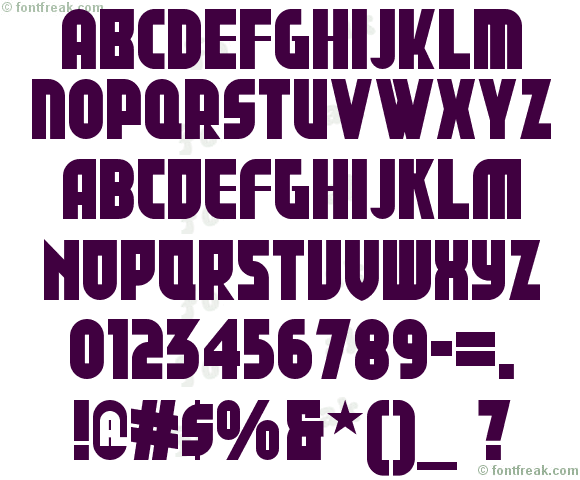
Shall We Gdansk NF
Shall We Gdansk NF is a striking display font designed by Nick Curtis, categorized as a sans-serif typeface. This font features a bold, geometric style that stands out with its strong, uniform stroke weight and minimal contrast between thick and thin lines. The clean lines and well-defined shapes provide a modern aesthetic, making it versatile for various design projects. The spacing of the characters is thoughtfully balanced, ensuring clarity and legibility even in larger sizes, which enhances its effectiveness as a display typeface.
The Shall We Gdansk NF font is particularly suitable for a range of creative applications. It shines in settings such as wedding invitations where a contemporary yet elegant feel is desired, as well as in movie posters that require a bold statement. Additionally, it works well for restaurant menus, offering a modern touch that can complement any culinary theme. Graphic designers will find this font ideal for branding projects, where a unique, eye-catching typeface is essential to make a lasting impression. Small business owners and content creators can also benefit from its dynamic style, helping their promotional materials to stand out.